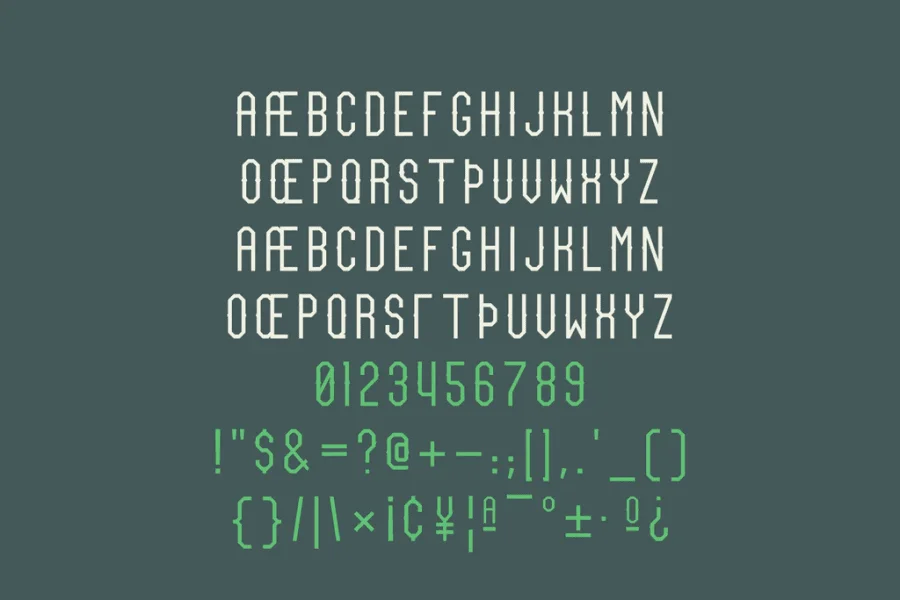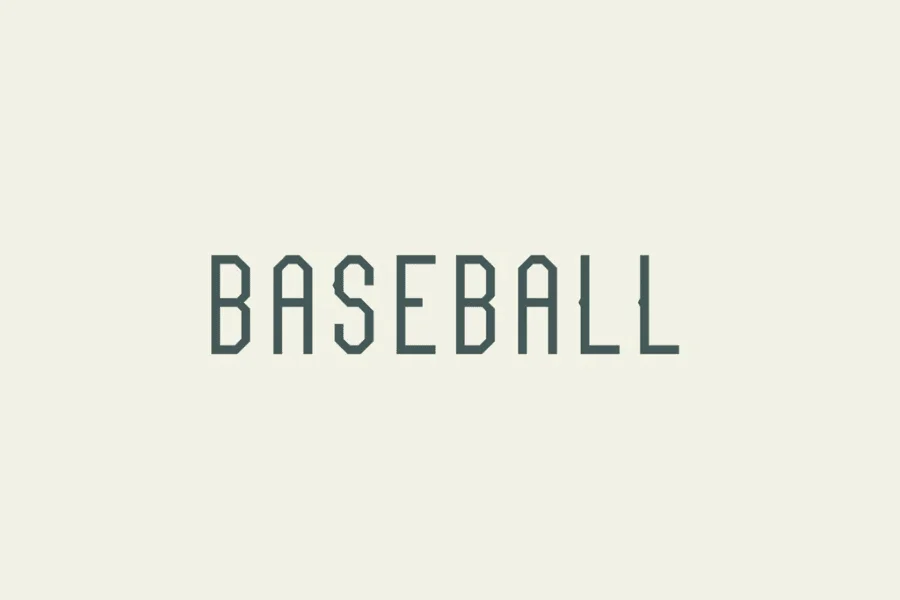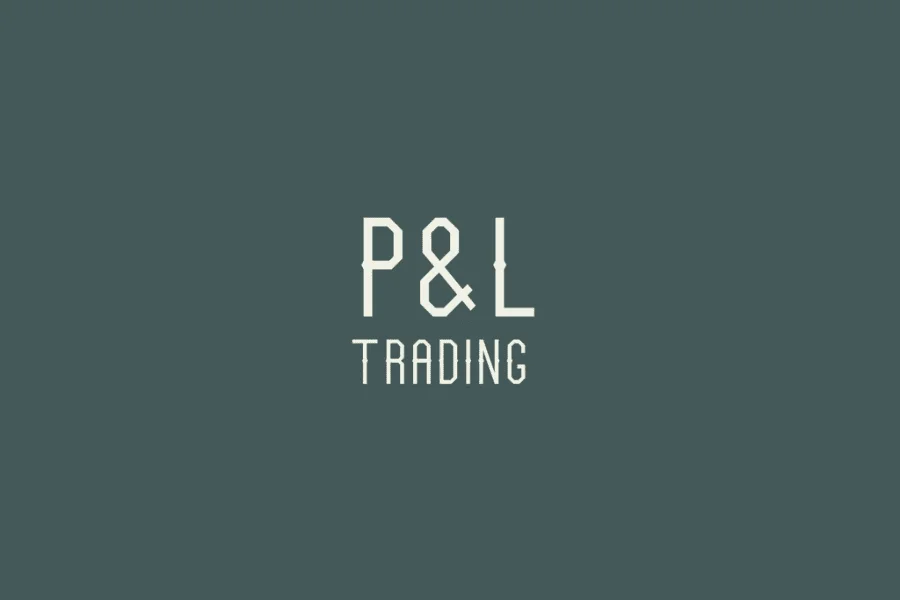
Super proud of this one - just built this thinline athletic font from scratch so I could have a high school-style font with flags on the midsection! Free for personal use / pick up a commercial license as part of our Athletic bundle!